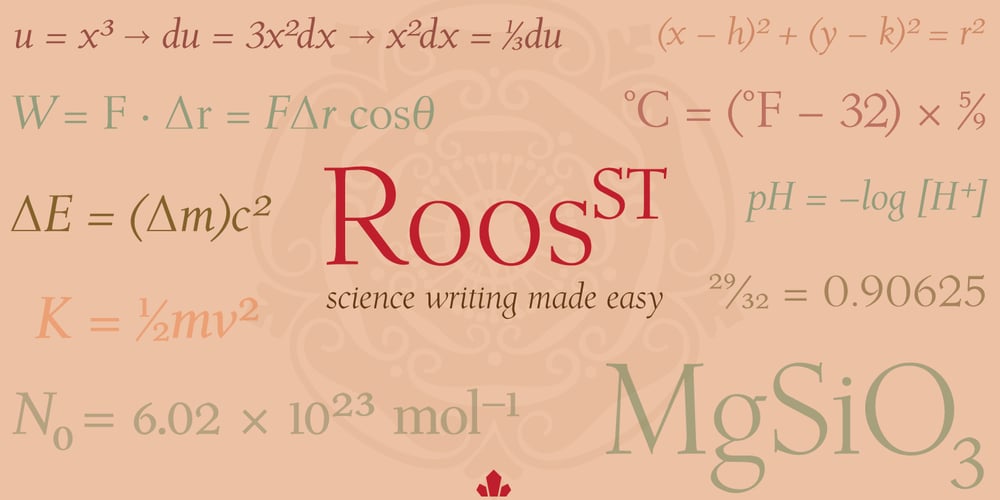
Roos ST Font Family was designed by Hans van Maanen, Patrick Griffin and published by Canada Type. Roos ST contains 6 styles and family package options. Roos ST is a special version of the Roos family, engineered specifically for science writing. It is equipped with SciType, a combination of additional characters and OpenType programming included in the fonts to help with typesetting science text. For more information about SciType, please consult the SciType FAQ available in the Gallery section of this page. The Roos design is the Dutch classic made by S. H. de Roos during the years of the second World War, and subsequently used for a special edition of the Dutch Constitution on which Juliana took the oath during her inauguration as the Queen of the Netherlands. This design is widely regarded as de Roos’s finest, and has one of the most beautiful italics ever drawn. Aside from the SciType additions, all the Roos ST fonts contain OpenType features for ligatures, ordinals, automatic fractions, and seven kinds of figures. For details about the functionality of Roos ST, please consult its Access Chart PDF available in the Gallery section of this page.